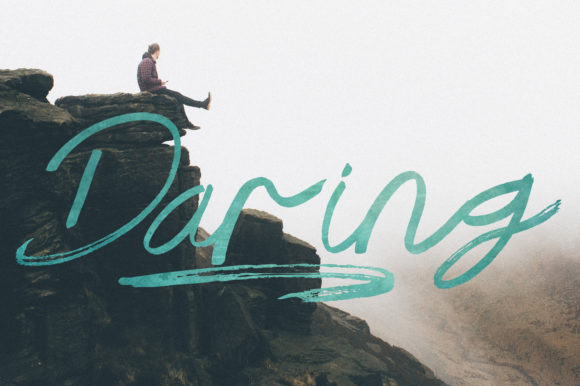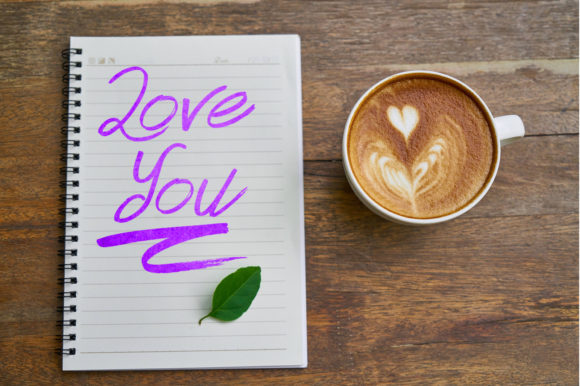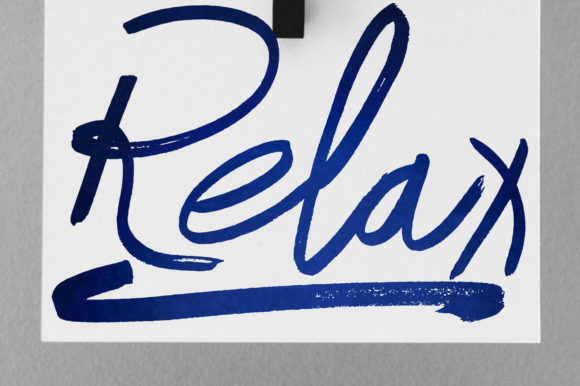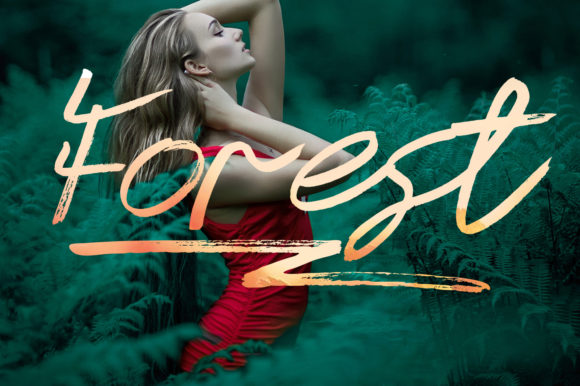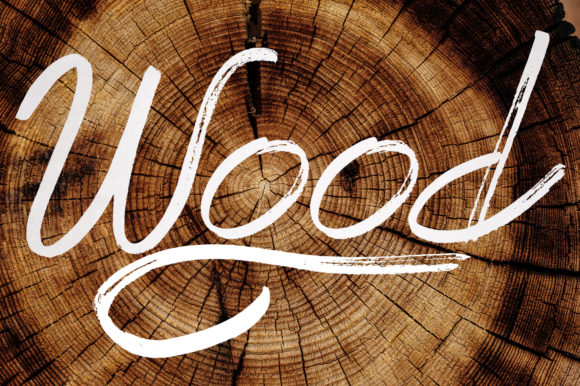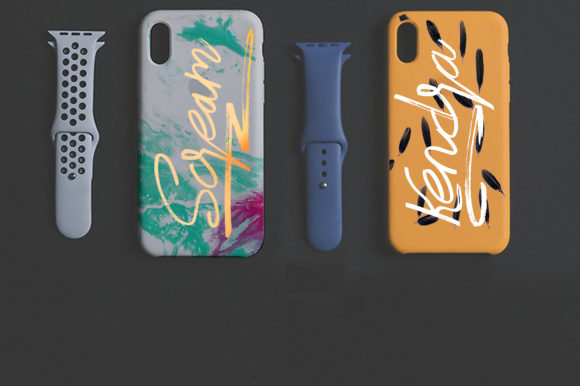
The Power of Handwritten Touch: Discover Bequest Font
Remember that moment when a simple handwritten note changed the entire atmosphere of a project? Maybe it was a heartfelt apology, a creative pitch, or a heartfelt letter. Whatever it was, you know that handwritten touch can make all the difference. It’s personal, it’s authentic, and it’s uniquely yours.
That’s where Bequest Font comes in β a beautifully crafted handwritten font designed to add a touch of authenticity to your creative ideas. This unique font is not just another typeface; it’s a tool to help you connect with your audience on a deeper level. Whether you’re a designer, artist, or writer, Bequest Font is a valuable addition to your toolkit, allowing you to inject a sense of humanity into your work.
Bequest Font Key Features
- Font Size: The Bequest Font family includes 8 weights, ranging from Light to Black, offering flexibility in design and typography.
- Unique Characteristics: Bequest Font features a unique, elegant script style with subtle flair and connections between letters, making it ideal for creative and high-end designs.
- Language Support: The font includes support for a wide range of languages, including Latin, Cyrillic, and Greek scripts, making it suitable for global design applications.
- Scalability: Bequest Font is designed to scale well, maintaining its elegance and legibility even at small font sizes, making it suitable for use in digital and print media.
Bequest Font Review
Overall, I’m quite impressed with the Bequest Font. Here’s what I like:
- β¨ Elegant and sophisticated feel: The font’s curves and lines give it a refined, high-end look that’s perfect for luxury brands and high-end design projects.
- β¨ Versatile: Bequest Font comes in a range of weights and styles, making it suitable for a wide variety of applications, from headings to body text.
- β¨ Well-suited for digital media: The font’s design makes it easy to read on screens, even at small sizes.
However, I do have some concerns:
- β οΈ Limited language support: Bequest Font doesn’t support many languages, which might be a problem for designers working on projects that require multilingual support.
- β οΈ May not be suitable for very large text: While the font looks great at smaller sizes, it can become difficult to read when used for very large text.
Overall, I think Bequest Font is a great choice for designers who need a high-end, elegant font for their projects. While it has some limitations, its strengths make it a valuable addition to any design toolbox.
The Bequest Font is ideal for:
– Luxury branding and marketing materials
– High-end packaging and labels
Alternatives to Bequest Font for Designers
Lato is a modern sans-serif font that works well for body text and titles. It’s a great alternative to Bequest Font for designers who want a clean and minimalist look. Lato is more geometric and has a simpler design compared to Bequest Font, making it ideal for digital products and websites.
Merriweather is a classic serif font that’s perfect for designers who want a traditional and elegant look. It’s a good alternative to Bequest Font for designers who want to add a touch of sophistication to their designs. Merriweather is more formal and has a higher contrast compared to Bequest Font, making it ideal for print materials and corporate branding.
Montserrat is a geometric sans-serif font that’s designed for urban environments. It’s a great alternative to Bequest Font for designers who want a modern and edgy look. Montserrat is more condensed and has a stronger grid system compared to Bequest Font, making it ideal for headlines and titles.